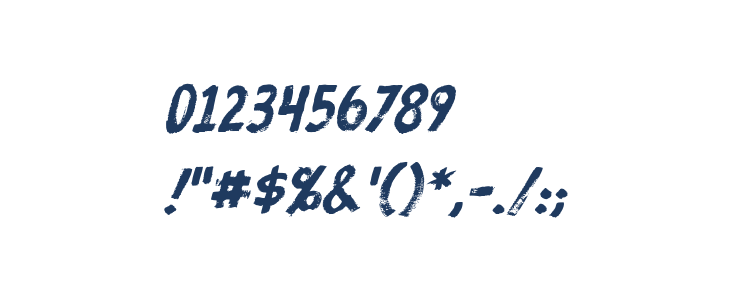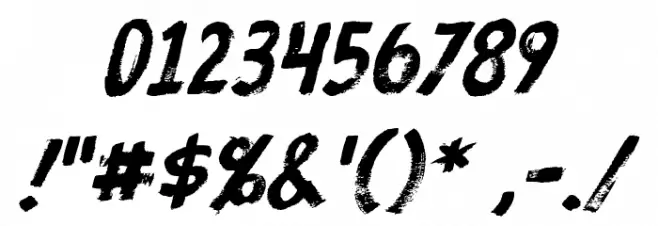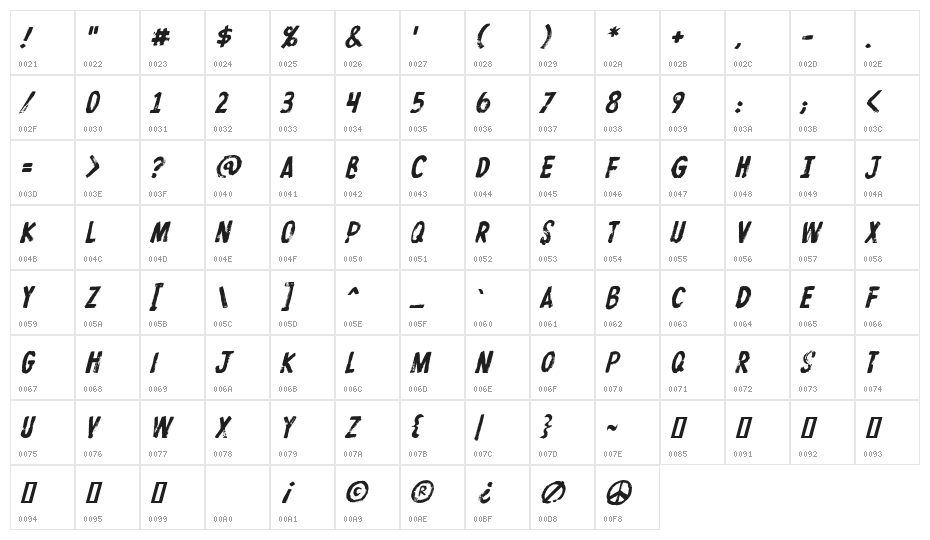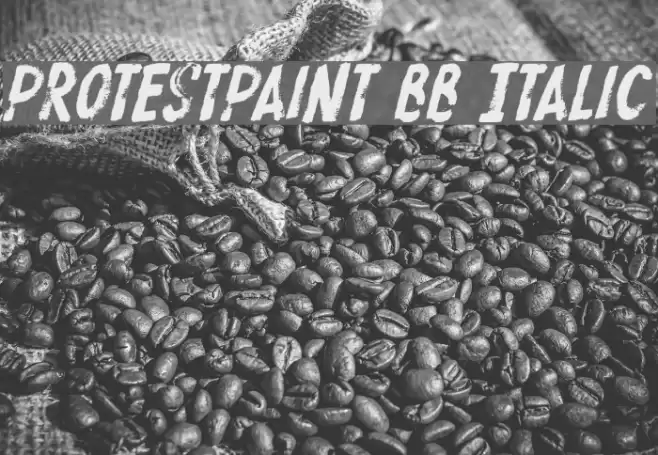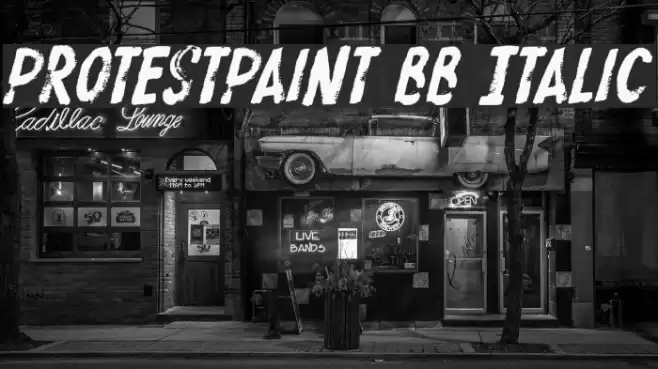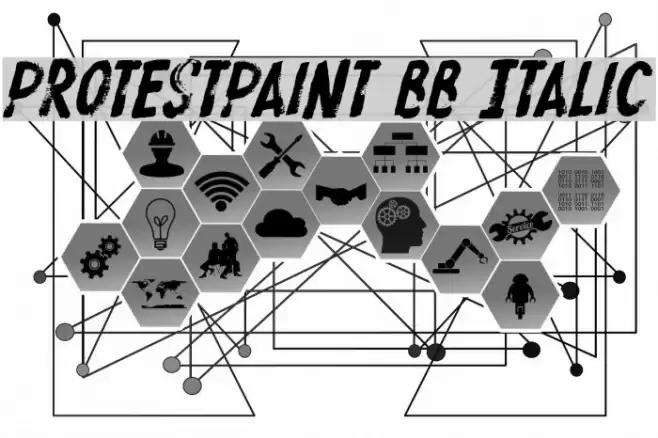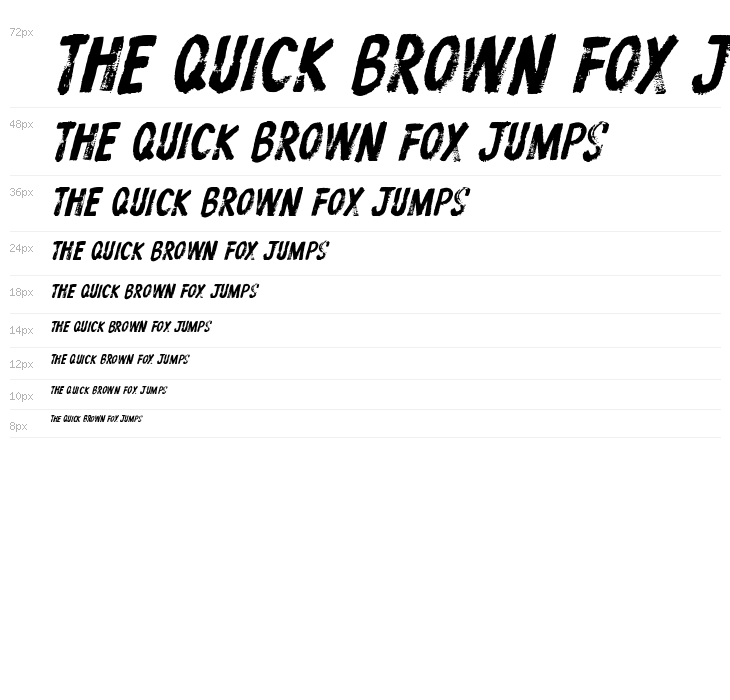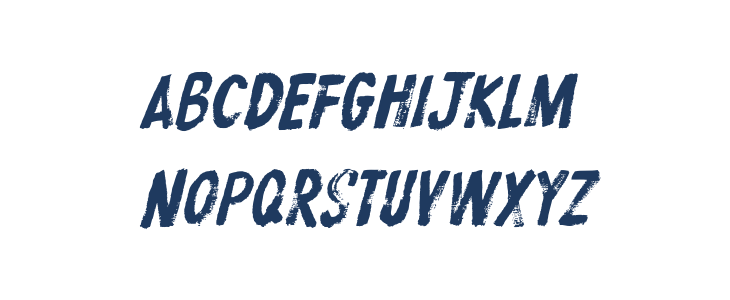
ProtestPaint BB Italic Font
ProtestPaint BB Italic Description
This font features a bold, expressive style with a hand-painted appearance. The letters are slightly slanted, giving it an italicized look. The brush-like strokes create a textured effect, adding a sense of movement and energy. Each character is distinct, with varying stroke thicknesses that contribute to a dynamic and lively aesthetic. The font is well-suited for making a statement, with its bold presence and artistic flair. It captures attention with its unique, distressed look, making it ideal for creative and impactful designs.
| Proposed Projects | Ideal for protest posters, artistic branding, album covers, and bold headlines. |